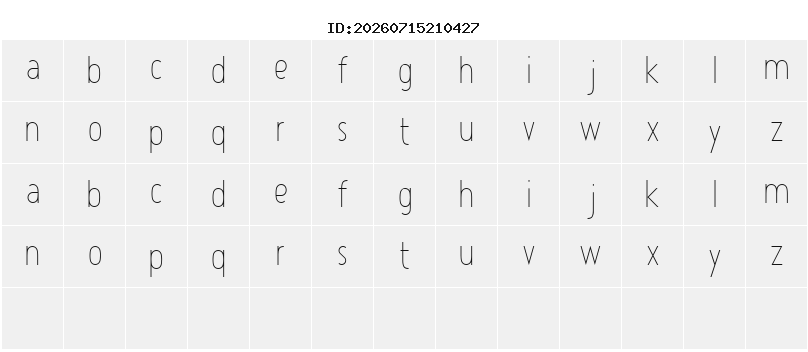
• Font Name: Atype 1
• Designer: Salvo Nicolosi
Atype 1.ttf is a modern, elegant sans-serif font designed for ultimate readability and visual harmony. Perfect for branding, headlines, web design, and print materials.